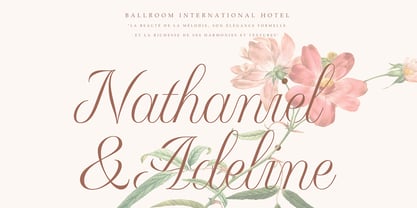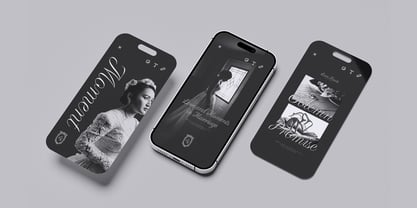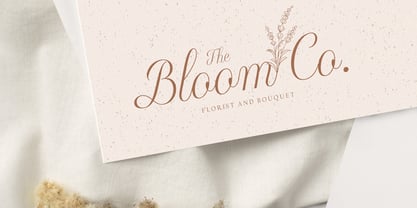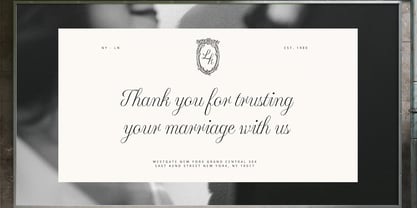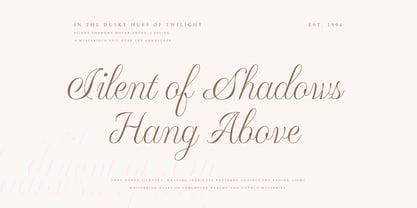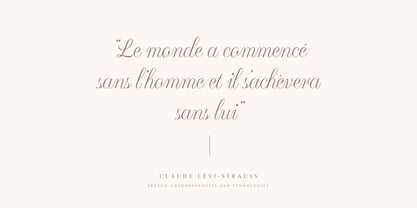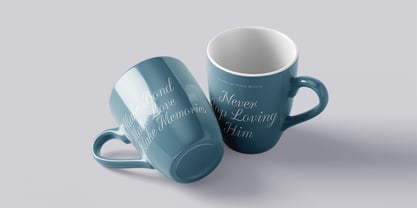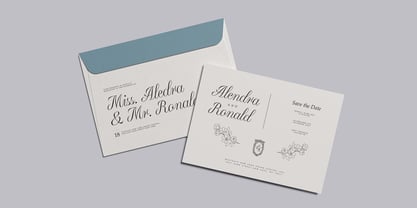
Andrea Harisah
von Typia Nesia
Die Schriftfamilie Andrea Harisah wurde von Arief Setyo Wahyudi entworfen und von Typia Nesia veröffentlicht. Andrea Harisah enthält 1 Stile.
Andrea Harisah is a Classic Calligraphic Font that radiates elegance and Beauty charm. Its flowing, hand-drawn strokes and Aesthetic design make it the perfect choice for projects that require a touch of classic beauty to any project. Ideal for wedding invitations, branding, greeting cards, editorial design, luxury packaging, certificates and diplomas, use the font for designing certificates of achievement, diplomas, and awards, providing a formal and classic appearance.